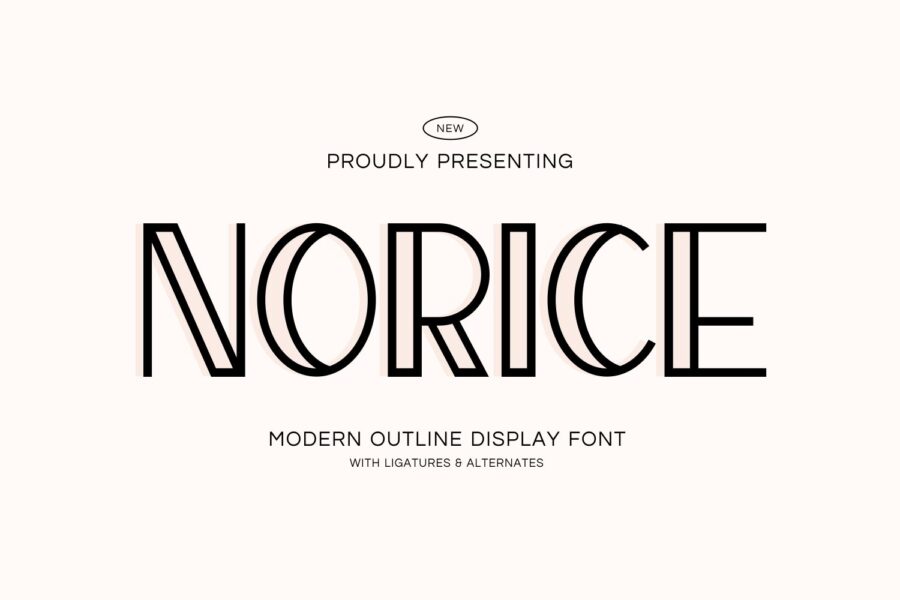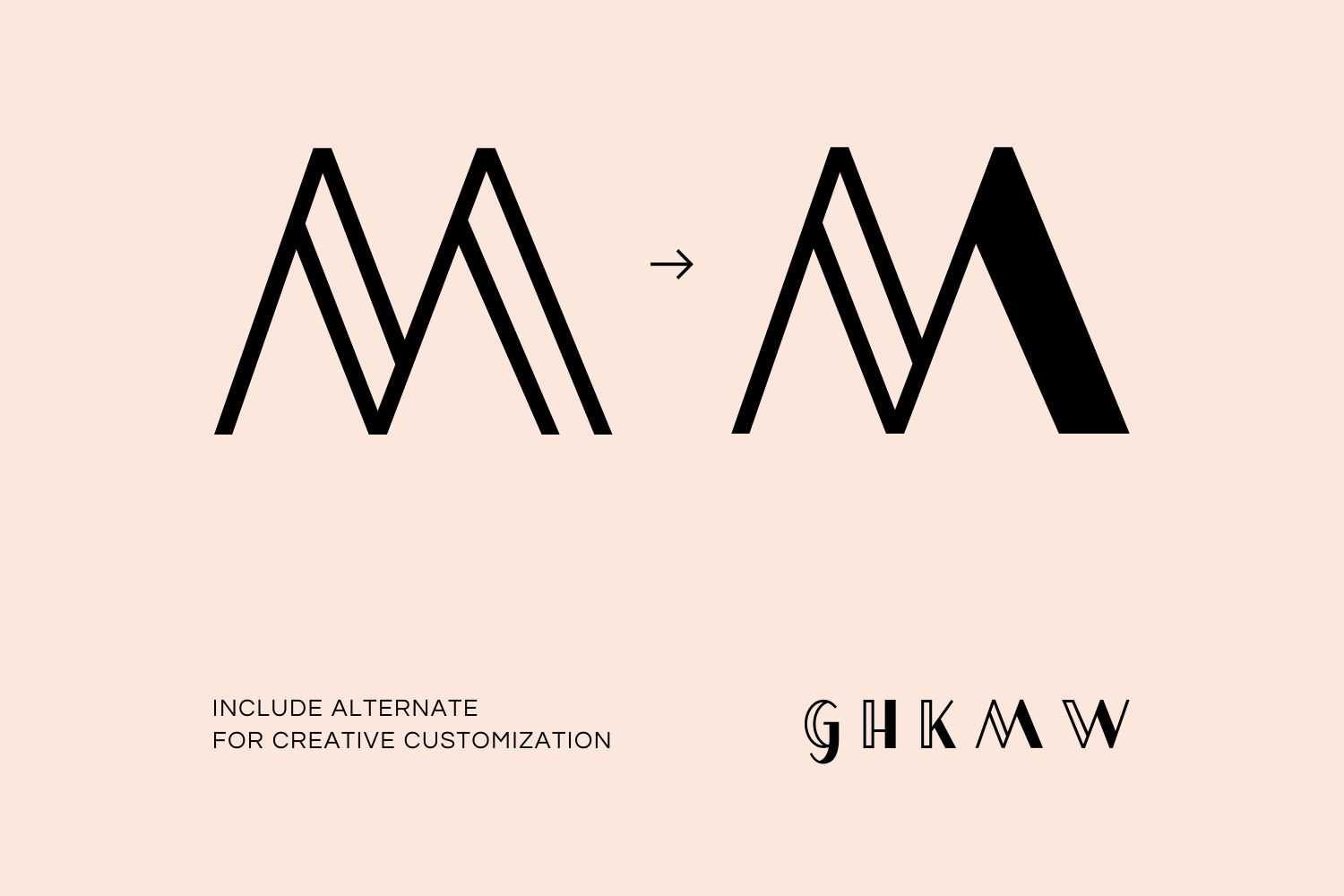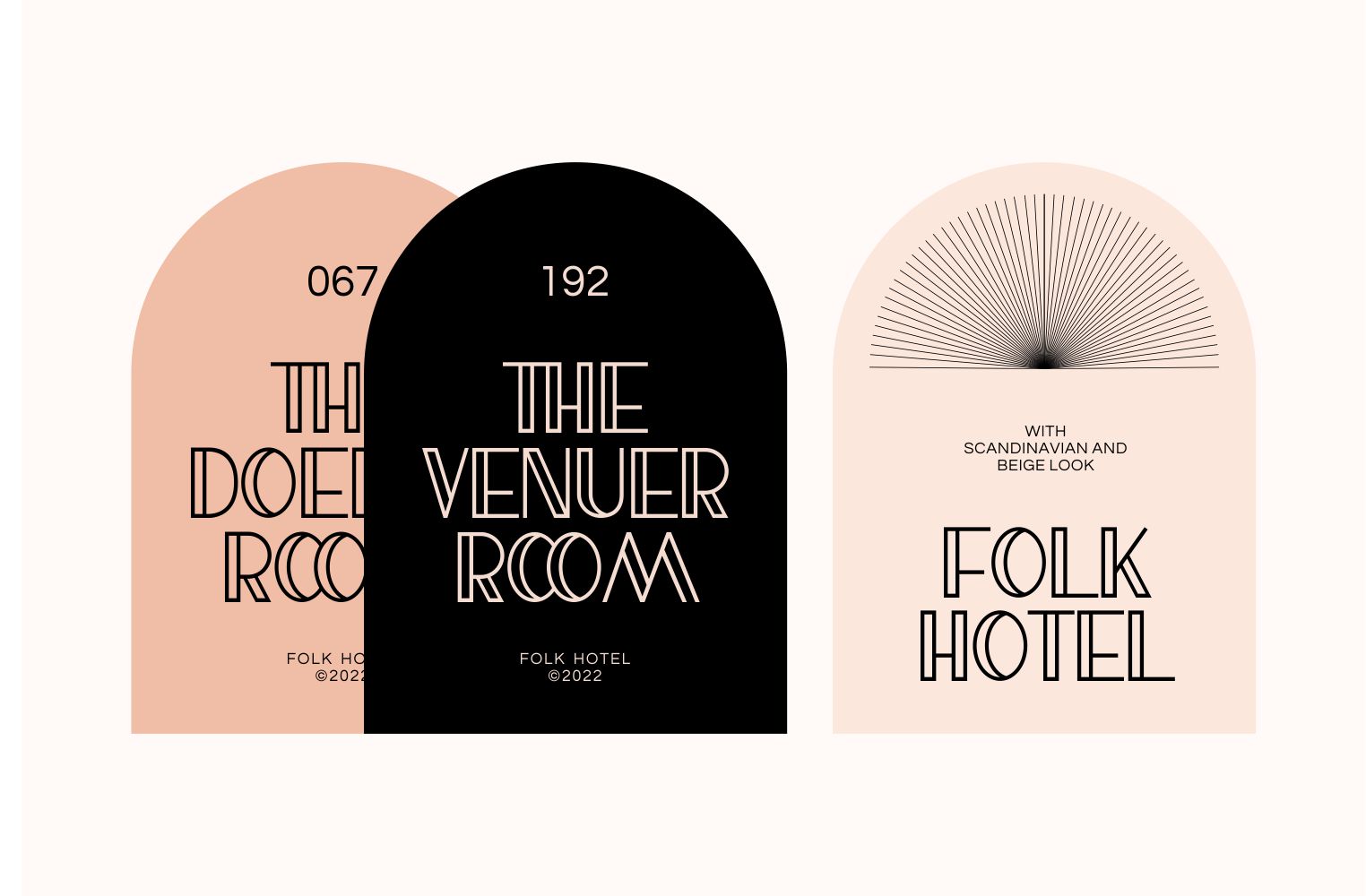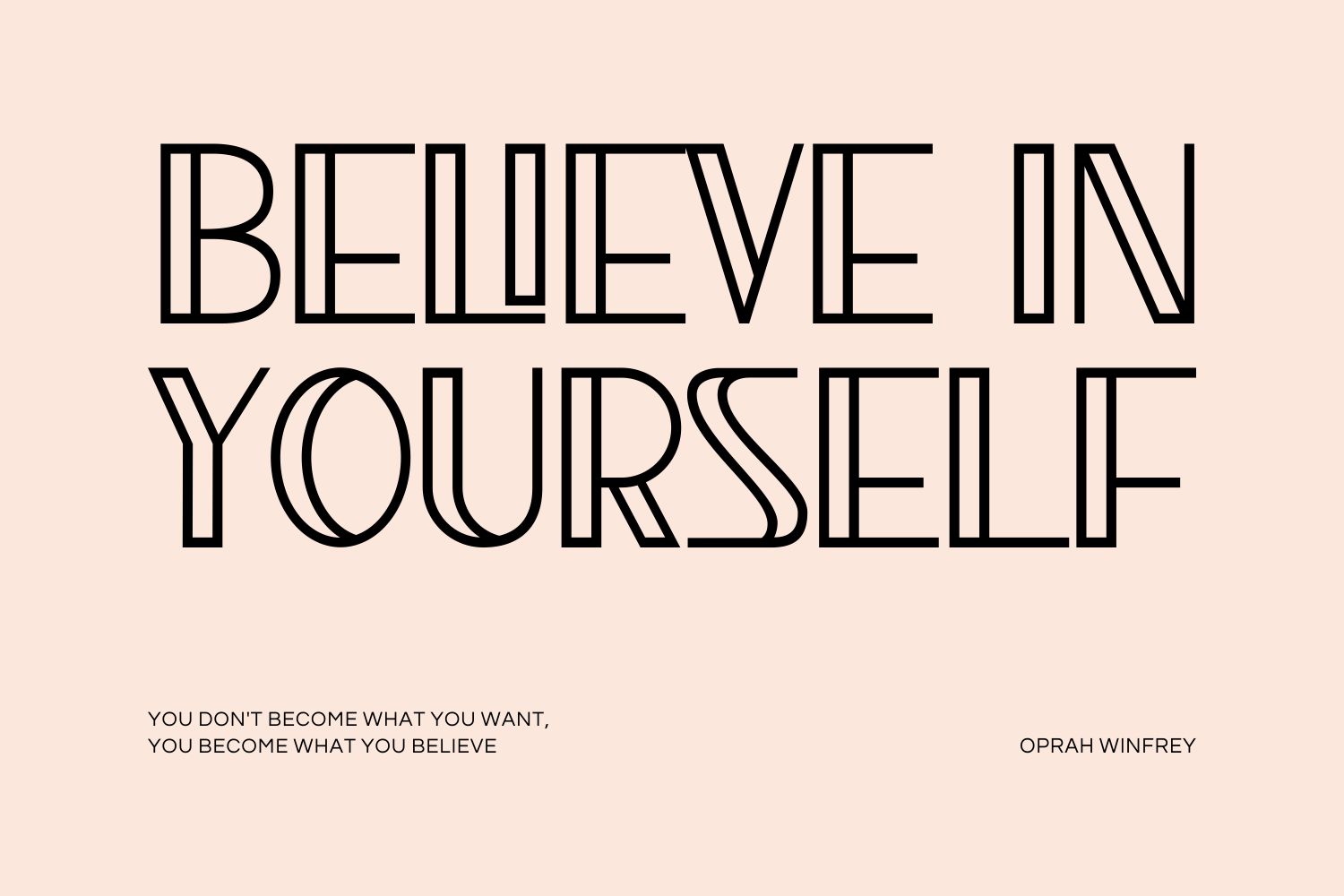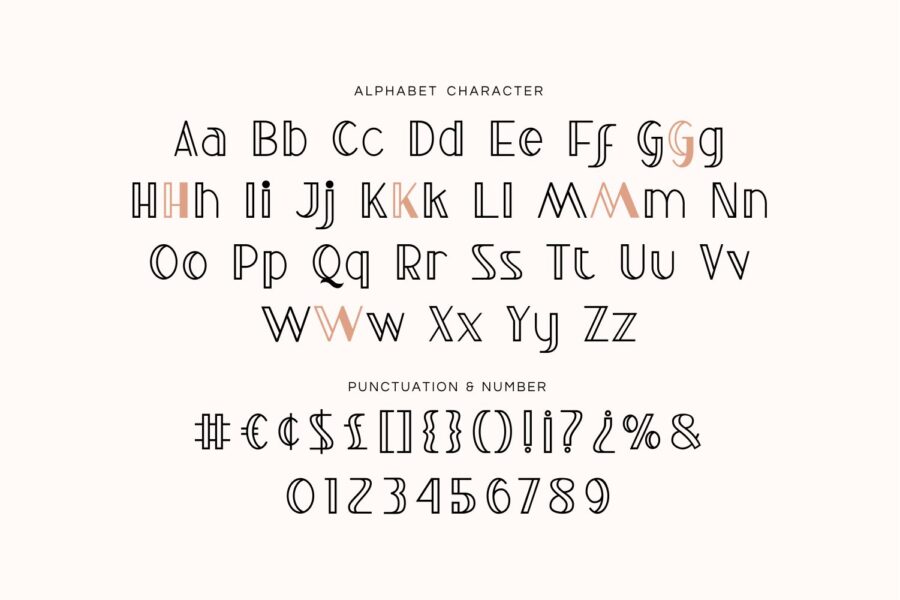
Norice
Norice is a Modern Outline Display Font that blends sleek sophistication with a bold geometric style. Its outlined letterforms bring a clean and contemporary aesthetic, perfect for creating designs that are both minimal yet striking. With its unique alternates and ligatures, Norice offers endless customization opportunities, making it ideal for branding, posters, packaging, and editorial designs that demand a refined, standout look.
Designed with versatility in mind, Norice adapts beautifully to modern creative projects, from luxury fashion branding to stylish invitations and chic logo designs. Its distinct outline style ensures readability while maintaining a strong design presence, making it a go-to choice for creatives who want to add a modern, elegant edge to their work.